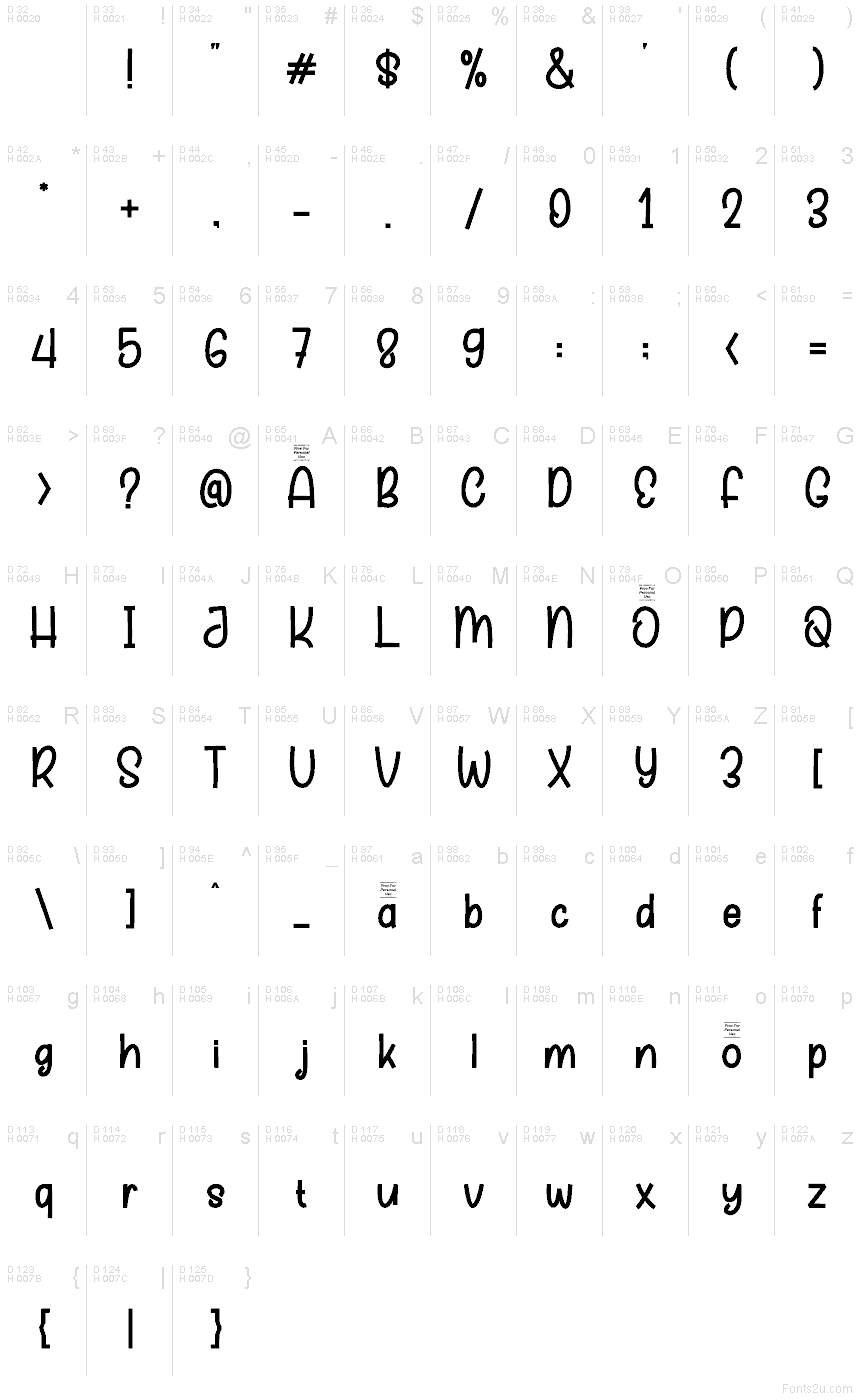
Bright Months
Bright Months font by Ermedia Studio is a free handwritten font that brings a friendly, bouncy rhythm to headlines and notes. Tall, lightly wobbled letters with soft, inky edges feel like they were sketched with a thick marker—casual but still easy to read at a glance. It’s the kind of handwriting that keeps things upbeat without turning messy, great when you want warmth and clarity in the same line.
Using Bright Months, your projects instantly feel approachable: classroom posters, bullet journal headers, kids’ party invites, seasonal social captions, packaging for handmade goods, stickers, and greeting cards. This free font shines on colorful backgrounds and works beautifully alongside a clean geometric sans; try pairing with Montserrat and bump Bright Months a size larger for a cheerful hierarchy.